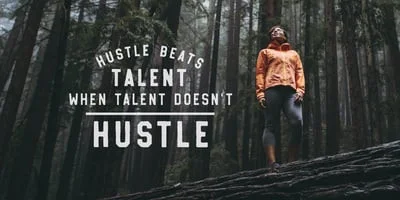
Treadstone Font
Treadstone Font is perfect for military-themed designs, tactical gear branding, security company logos, action movie titles, gaming interfaces, law enforcement materials, adventure sports promotions, and bold marketing campaigns that require strength, reliability, and commanding presence in their visual communication.
Treadstone Font is exciting because it embodies unwavering strength and tactical precision with its bold, commanding letterforms that convey authority and reliability. The font's robust character and military-inspired design elements create an immediate sense of power and dependability that resonates with audiences seeking strength, security, and professional excellence.
The Treadstone Font family includes strategic variations: Regular, Bold, Black, Stencil, and Tactical versions. Each style maintains the font's signature commanding presence while offering different levels of intensity and military aesthetic, allowing designers to create powerful hierarchies that communicate strength, precision, and uncompromising quality across all applications.
This powerful typeface brings commanding authority and tactical excellence to every design application. Whether you're creating security service branding, military contractor materials, or high-stakes gaming interfaces, Treadstone Font delivers unmatched strength and professional credibility that instills confidence in demanding situations. The font's precisely engineered letterforms feature bold strokes and tactical proportions that ensure maximum impact and readability under pressure. Designers value its ability to convey reliability, strength, and professional competence across various high-stakes applications. The comprehensive character set includes military-style numerals and tactical symbols that enhance the authoritative aesthetic. With its commanding presence and tactical precision, Treadstone Font transforms any project into a demonstration of strength and reliability, making it the perfect choice for brands and designs that must communicate unwavering dependability and professional excellence when performance matters most.